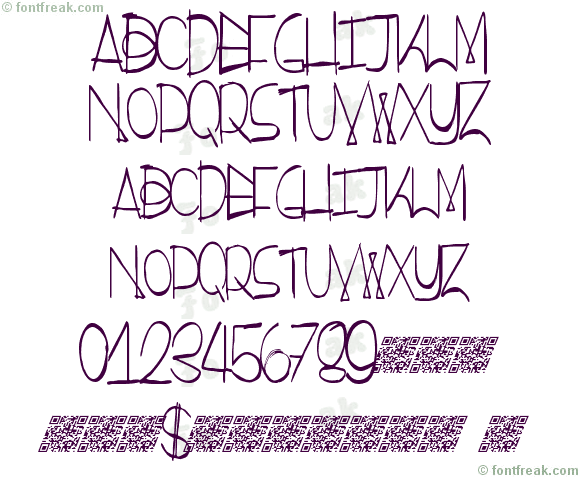
ElectronicVoyage
About ElectronicVoyage
ElectronicVoyage by XEROGRAPHER FONTS is a striking display font that captures the essence of futuristic design with its unique, edgy style. As a decorative font, it features irregular, angular letterforms that convey a sense of movement and innovation, making it a perfect choice for projects that aim to evoke a high-tech or avant-garde atmosphere. The stroke weight varies throughout the characters, creating an intriguing visual contrast that draws the eye and enhances readability. The spacing between letters is thoughtfully designed to maintain clarity while still embracing the font's dynamic aesthetic.
This font is particularly well-suited for a variety of creative applications. Graphic designers can use the ElectronicVoyage font for eye-catching movie posters, giving titles a modern twist that resonates with sci-fi themes. It also works beautifully for event flyers, especially those targeting electronic music festivals or punk events. Small business owners might find it an appealing choice for branding, especially if their ventures relate to technology or youth culture. Content creators can utilize it in social media graphics to stand out in crowded feeds, making their posts more visually striking.
The target audience for ElectronicVoyage includes graphic designers, small business owners, and content creators who seek a font that breaks away from traditional norms. Its unique visual characteristics can help elevate any project, making it memorable and engaging.